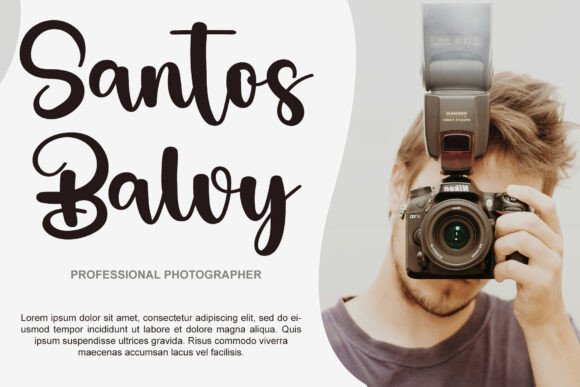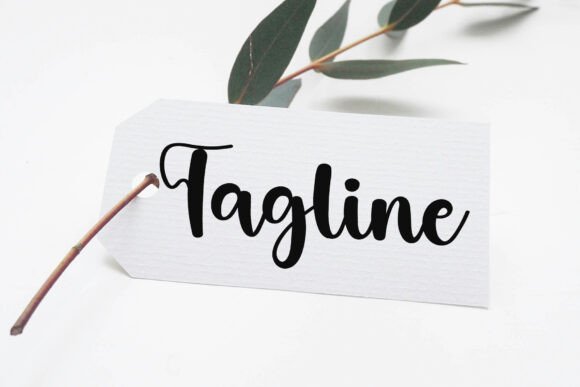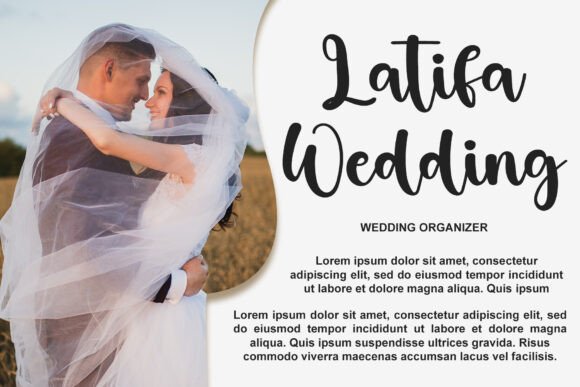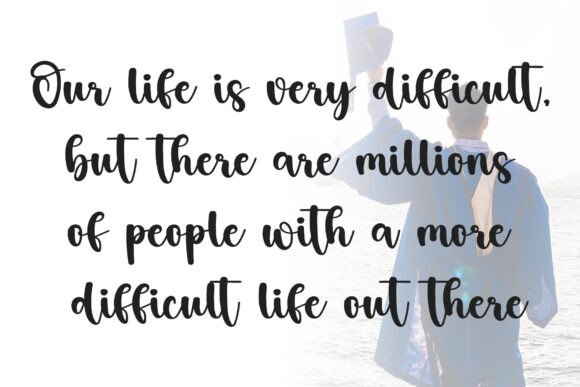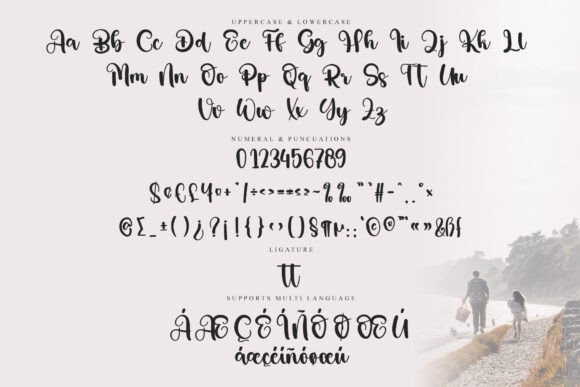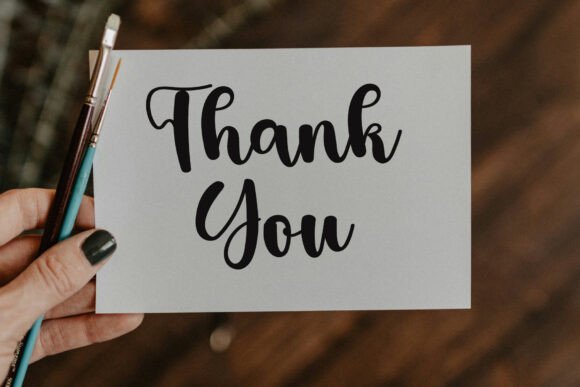
Introducing Ballpoint Writing Font: Elevate Your Designs with Bold Elegance
In the world of typography, few fonts manage to capture the essence of both strength and elegance as effectively as the Ballpoint Writing Font. This dynamic script style font is designed to make a statement, blending the fluidity of handwritten calligraphy with a modern, assertive touch. Whether you’re a designer looking to create a striking logo, a stylish headline, or an eye-catching branding element, Ballpoint Writing Font is the perfect choice to deliver your message with confidence and flair.
The Unique Charm of Ballpoint Writing Font
Ballpoint Writing Font stands out in the crowded world of typography due to its unique characteristics. Its bold, fluid strokes exude a sense of strength and charisma, making it an ideal choice for designers who want to create a lasting impression. The font’s dynamic script style adds a touch of elegance, perfect for projects that require a sophisticated look. From logos and headlines to branding elements and more, Ballpoint Writing Font brings a level of refinement and poise that’s hard to match.
Key Features of Ballpoint Writing Font
- Bold and Fluid Strokes: The font’s bold strokes are both assertive and elegant, making it perfect for a wide range of design applications.
- Dynamic Script Style: The dynamic script style of Ballpoint Writing Font adds a touch of sophistication and elegance to any design.
- Modern and Assertive Touch: The font’s modern and assertive touch makes it perfect for designers who want to create a lasting impression.
- Versatile: Ballpoint Writing Font is versatile and can be used for a wide range of design applications, from logos and headlines to branding elements and more.
Uses of Ballpoint Writing Font
Ballpoint Writing Font is a versatile font that can be used for a wide range of design applications. Here are some of the most popular uses of this amazing font:
- Logo Design: The font’s bold and fluid strokes make it perfect for creating striking logos that capture the essence of a brand.
- Headlines: The dynamic script style of Ballpoint Writing Font makes it ideal for creating stylish headlines that grab attention.
- Branding Elements: The font’s elegance and sophistication make it perfect for creating eye-catching branding elements that leave a lasting impression.
- Advertising: Ballpoint Writing Font can be used to create bold and attention-grabbing ads that stand out in a crowded market.
Why Choose Ballpoint Writing Font?
With so many fonts available, why choose Ballpoint Writing Font? Here are just a few reasons why this font stands out:
- Unique Style: Ballpoint Writing Font has a unique style that’s both bold and elegant, making it perfect for designers who want to create a lasting impression.
- Versatility: The font’s versatility makes it perfect for a wide range of design applications.
- Easy to Read: Despite its bold strokes, Ballpoint Writing Font is easy to read, making it perfect for body text and other applications where readability is key.
In conclusion, Ballpoint Writing Font is a dynamic script style font that captivates with its bold, fluid strokes and elegant charm. Whether you’re a designer looking to create a striking logo, a stylish headline, or an eye-catching branding element, this font is the perfect choice. With its unique style, versatility, and ease of readability, Ballpoint Writing Font is sure to deliver your message with confidence and flair.